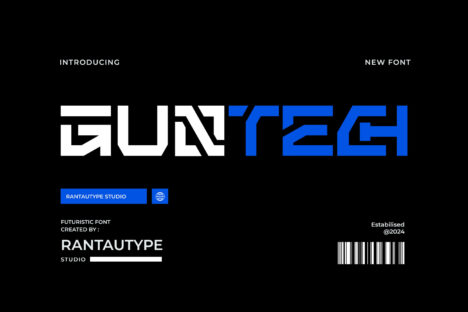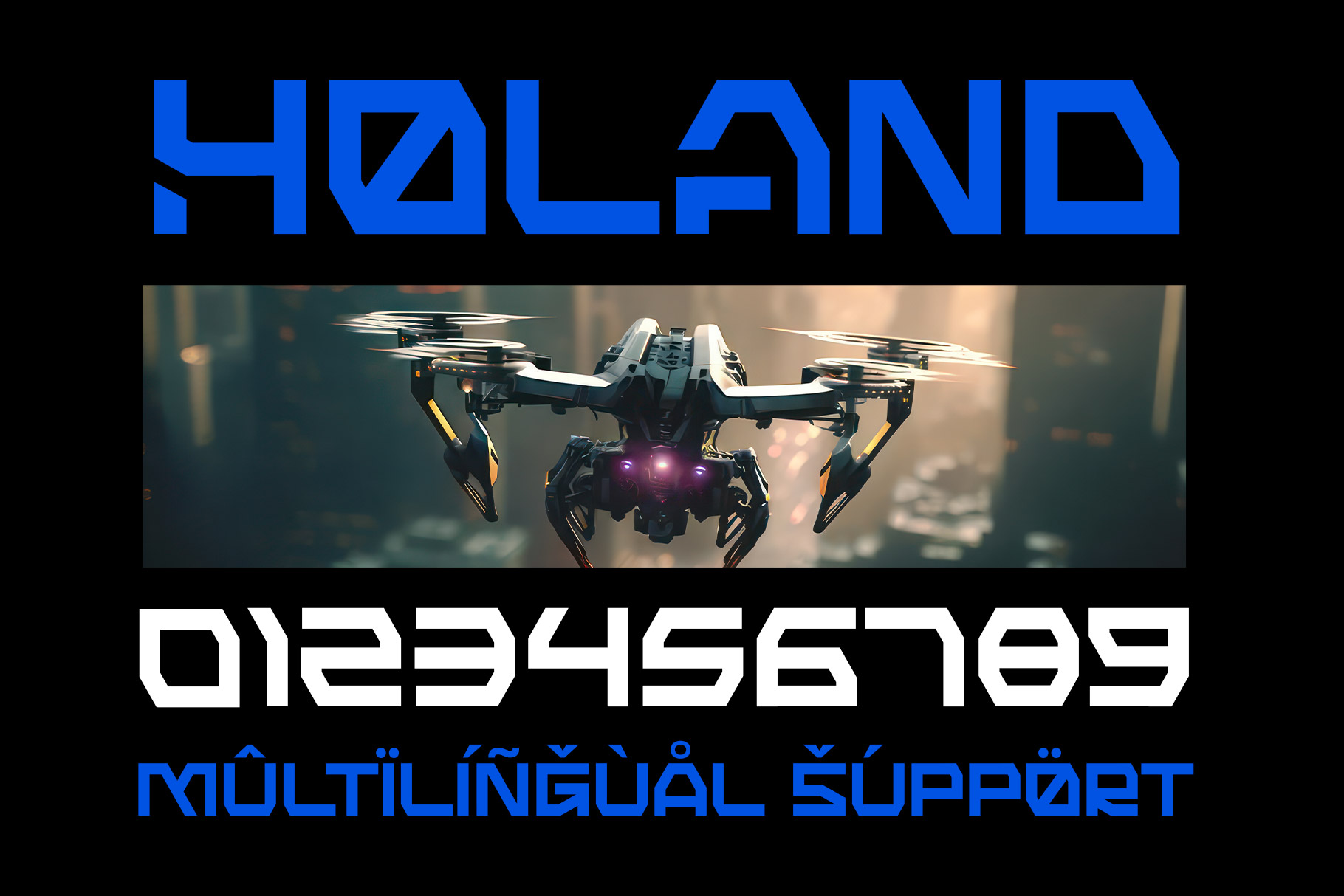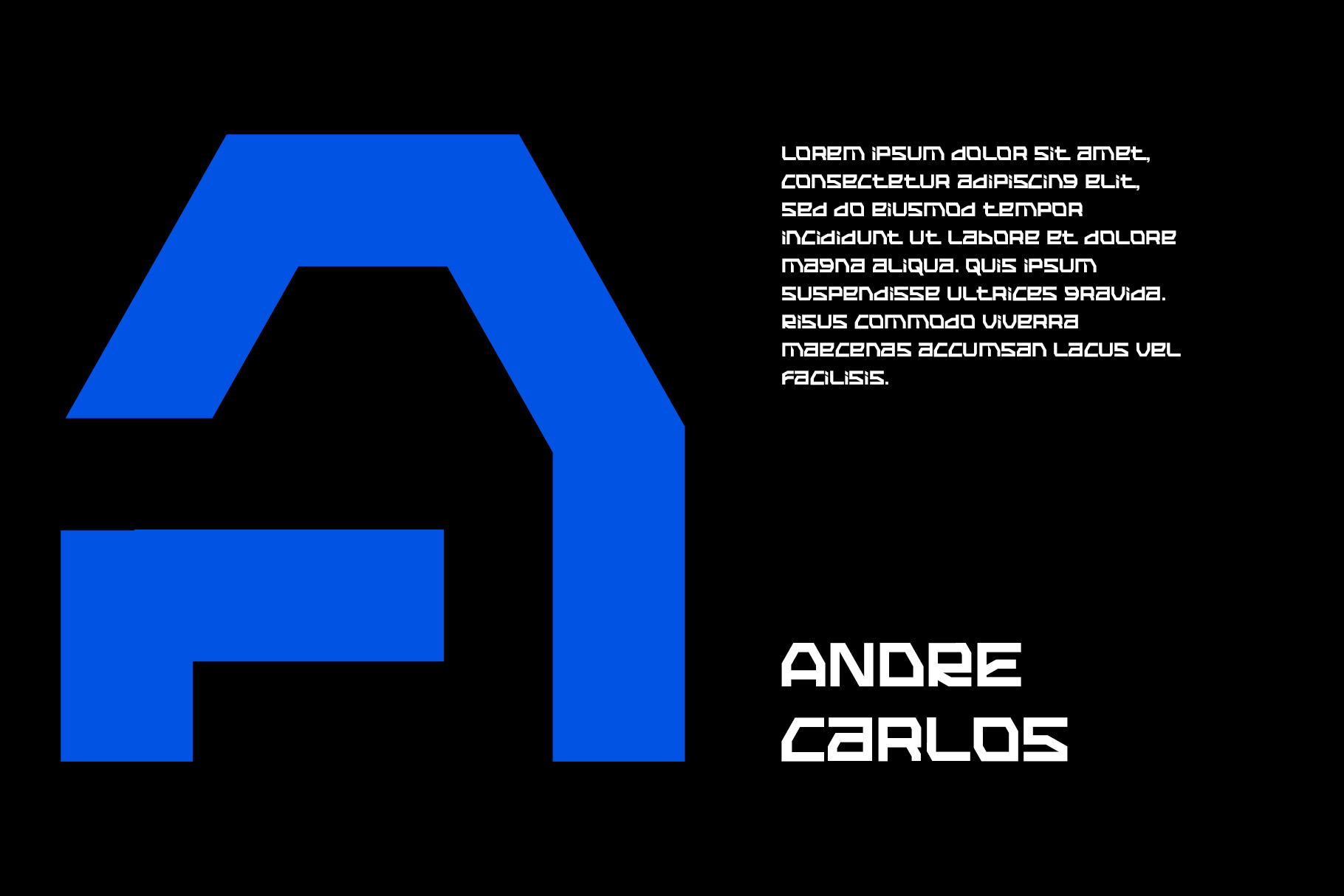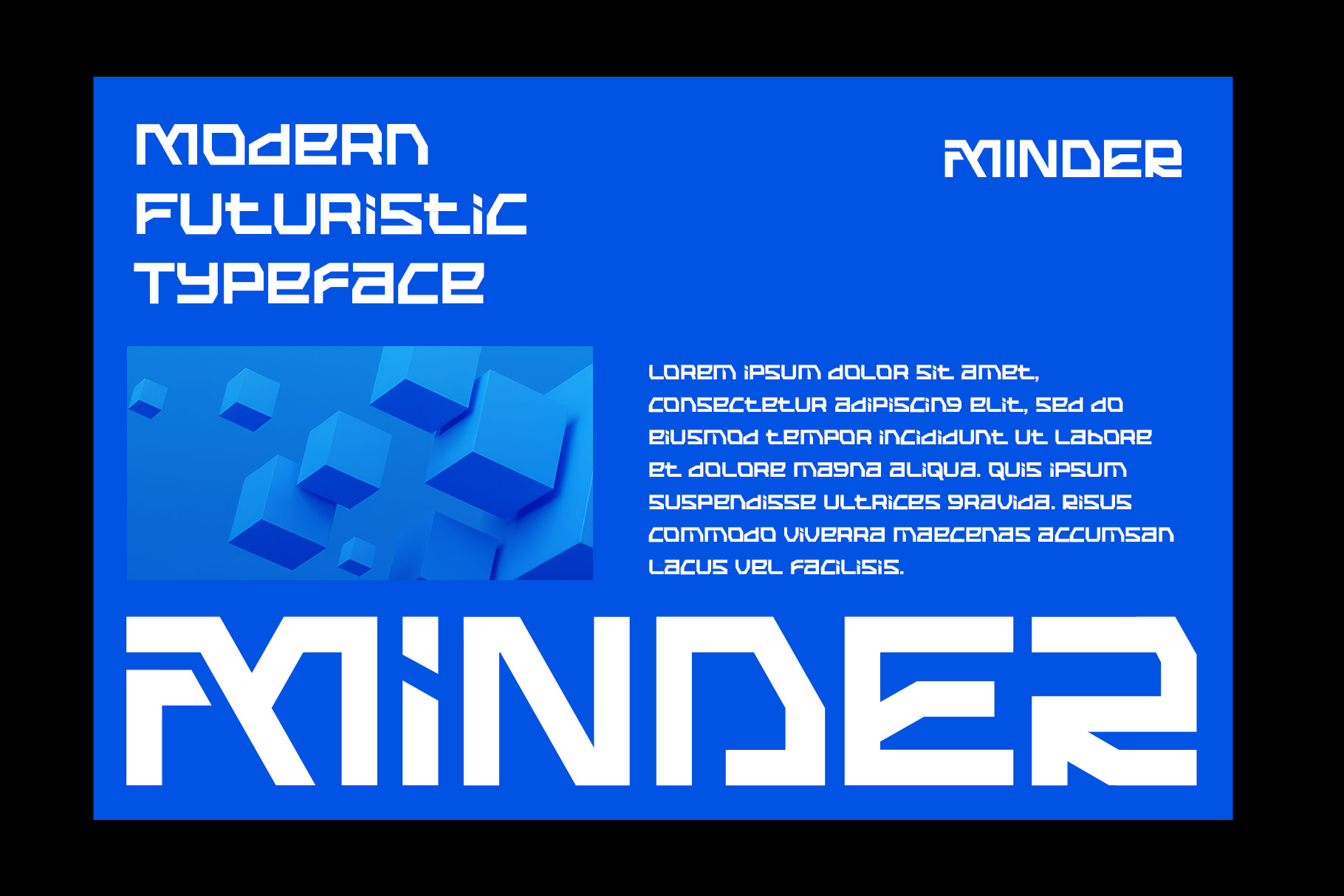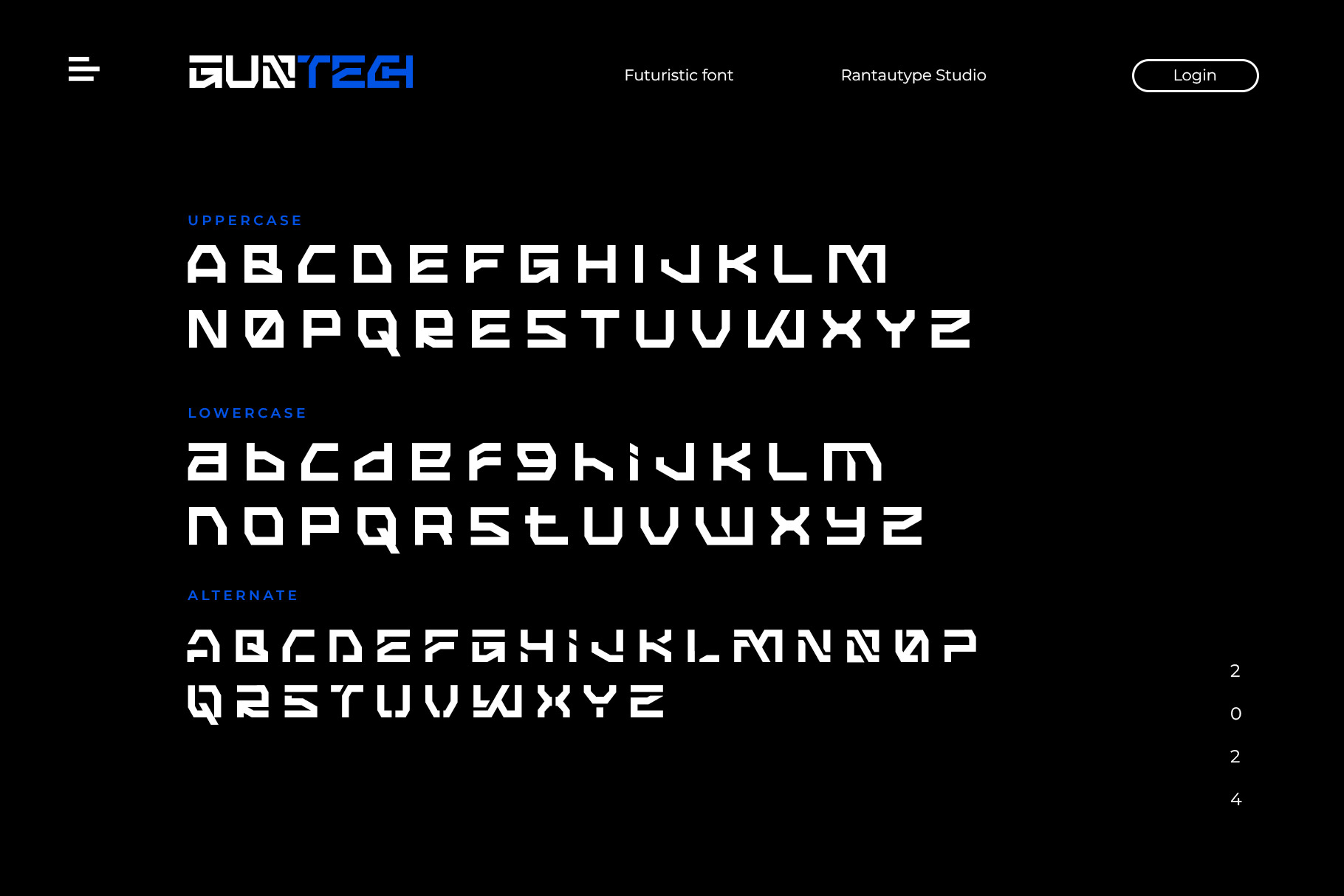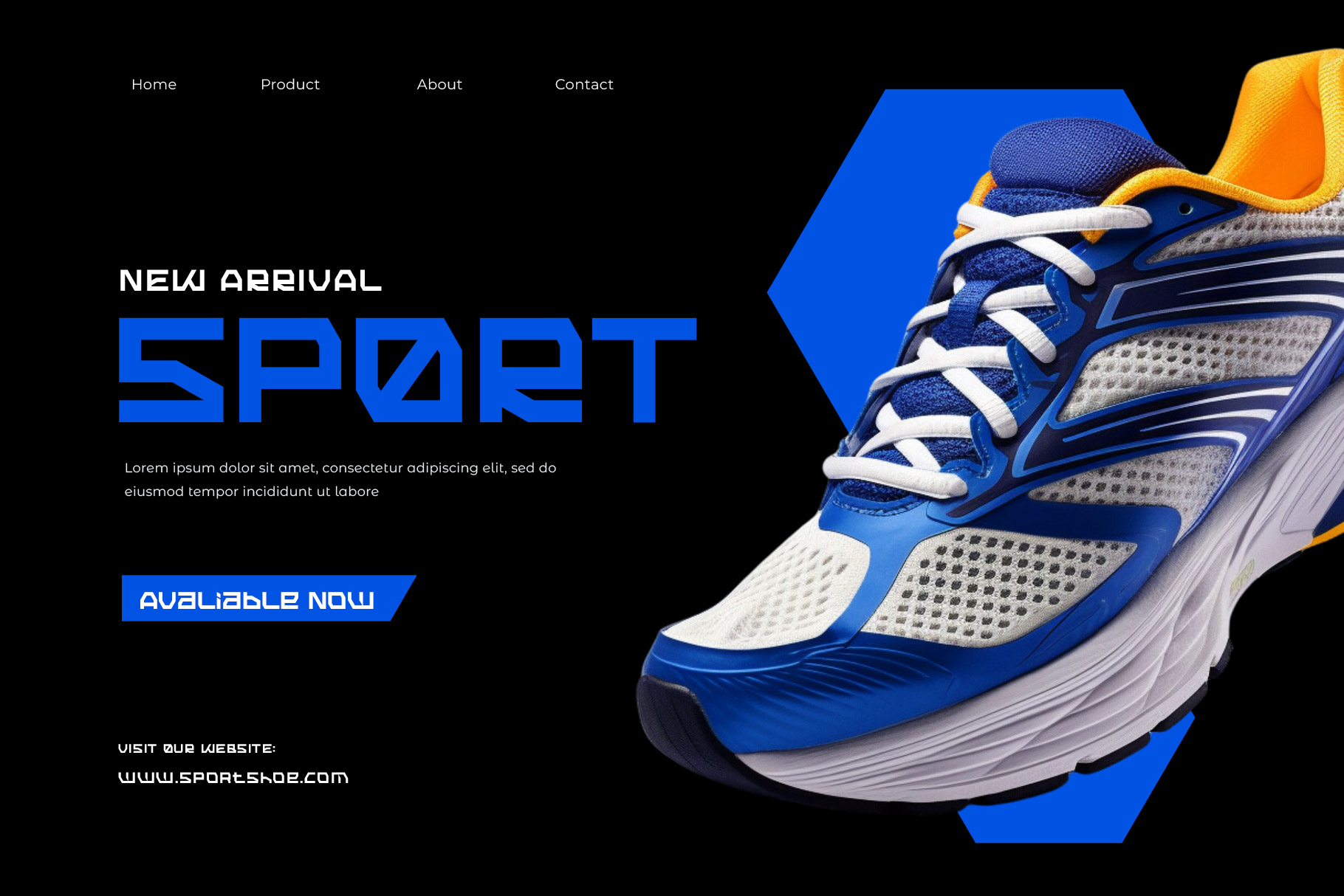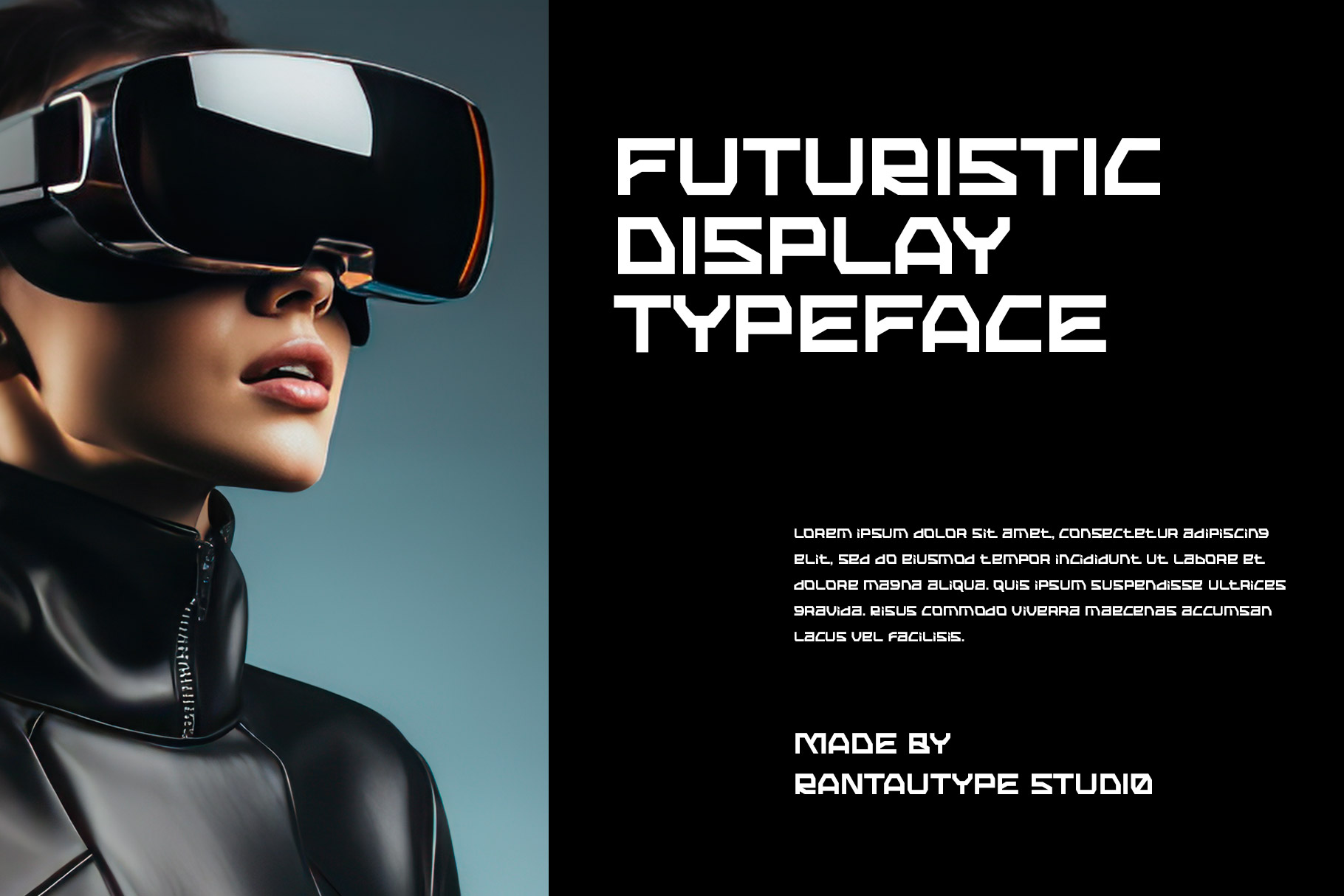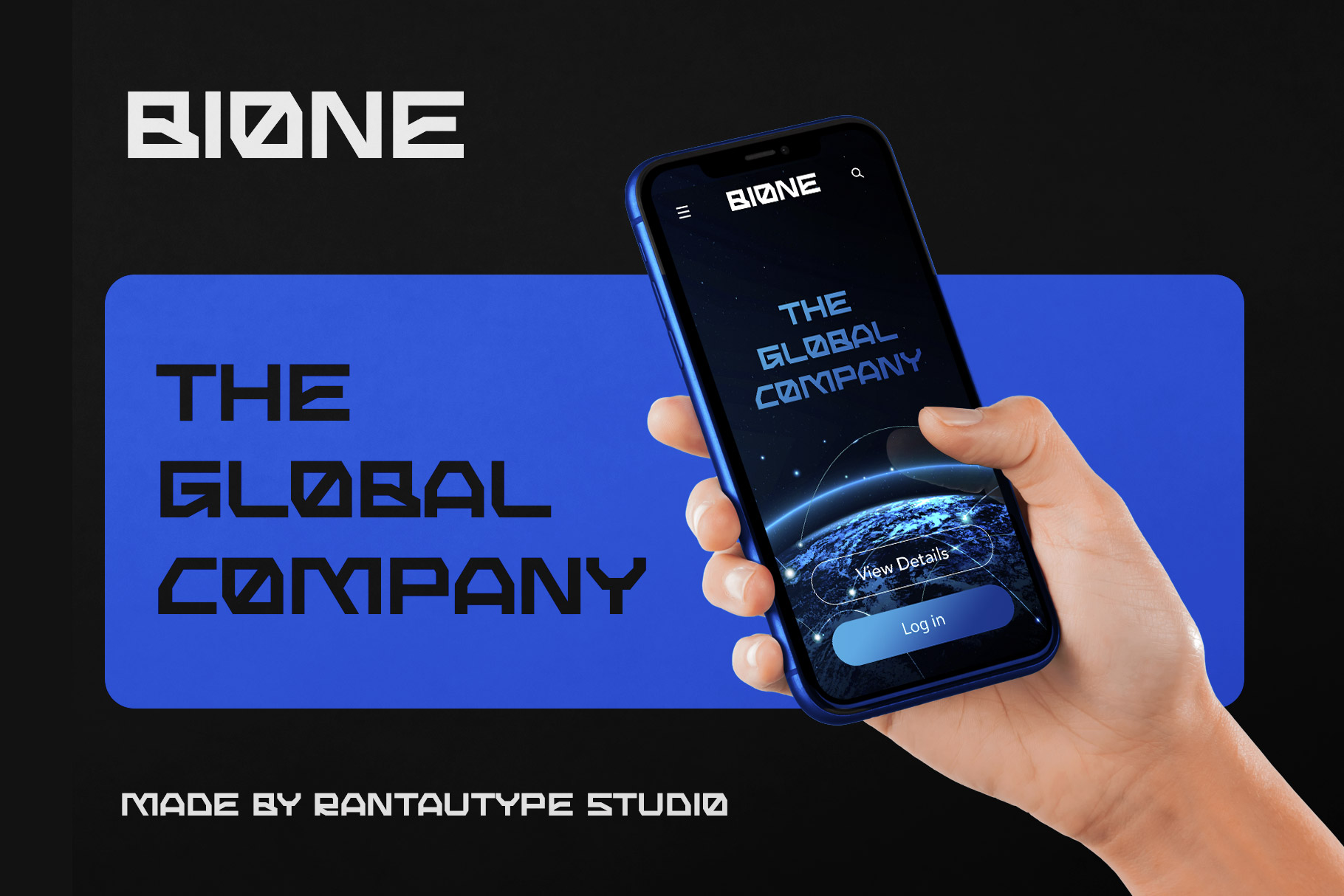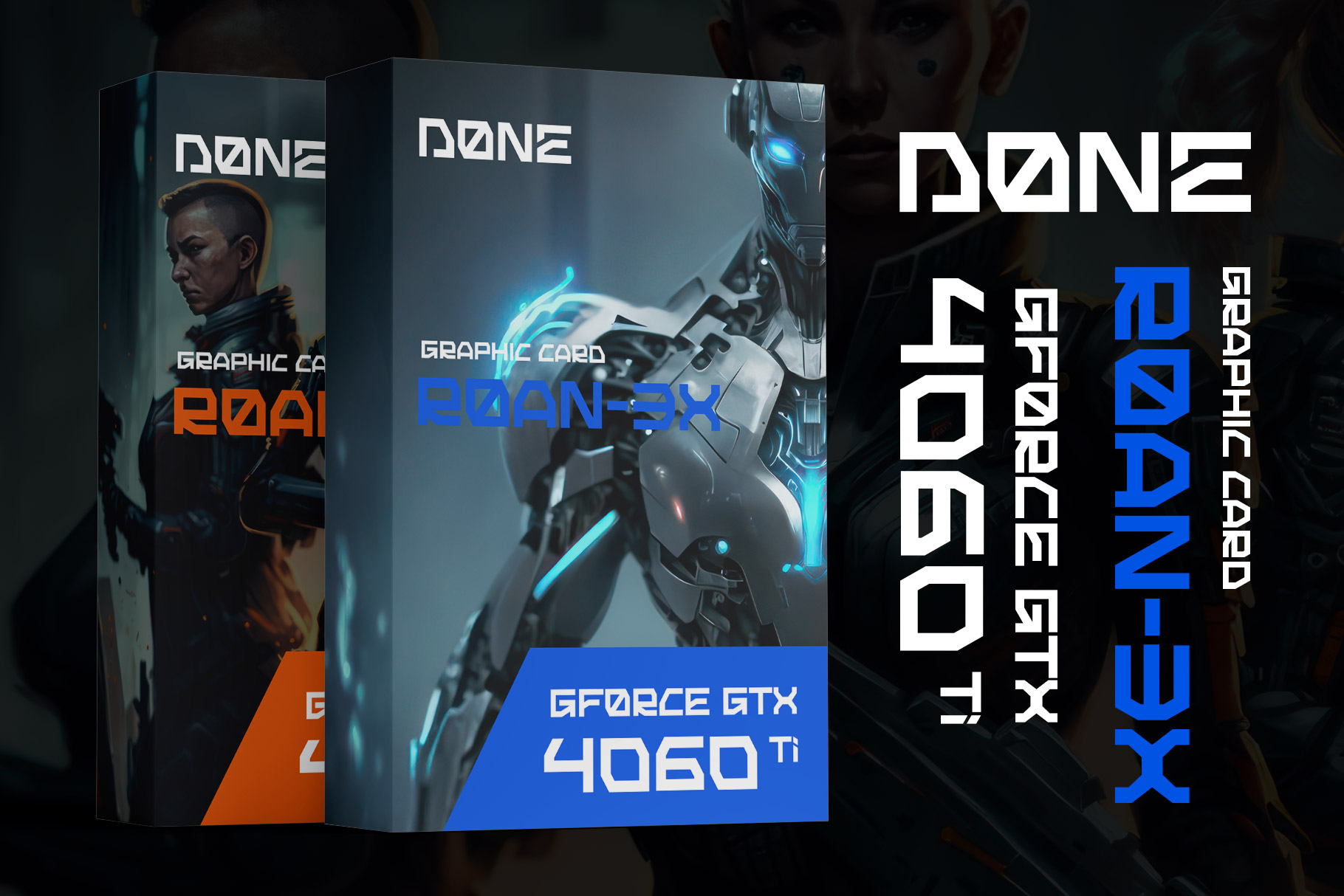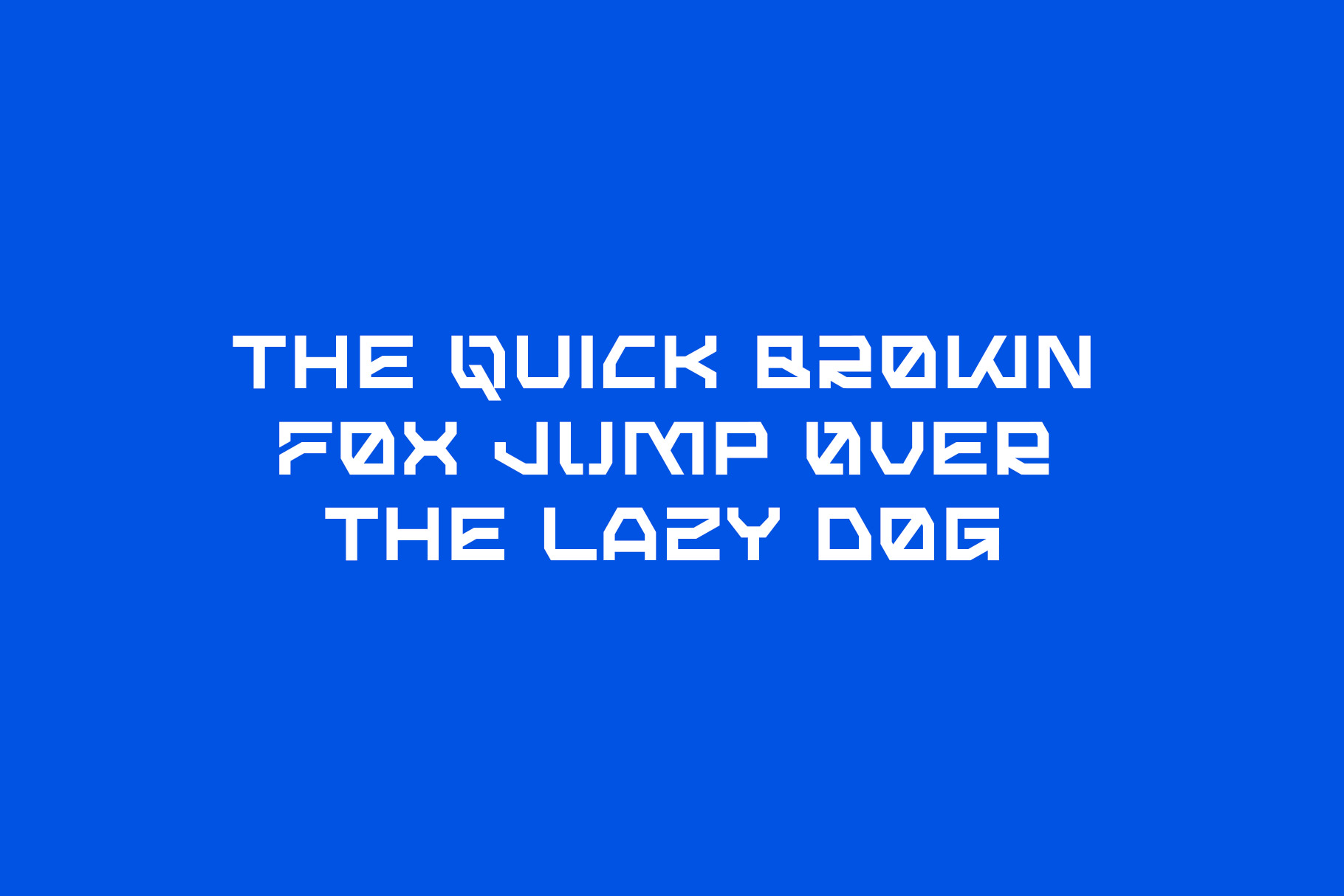
Guntech Modern Furturistic Font
Guntech is modern futuristic font inspire by visual of technology. We keep this font look sophisticated and easy to use.
Guntech is a perfectly choice for any creative endeavor, chic, lifestyle design such as logos, advertisements, stationery, branding project, display and magazine, invitation, corporate brand, product design, label, business project and many other project with futuristic touch.